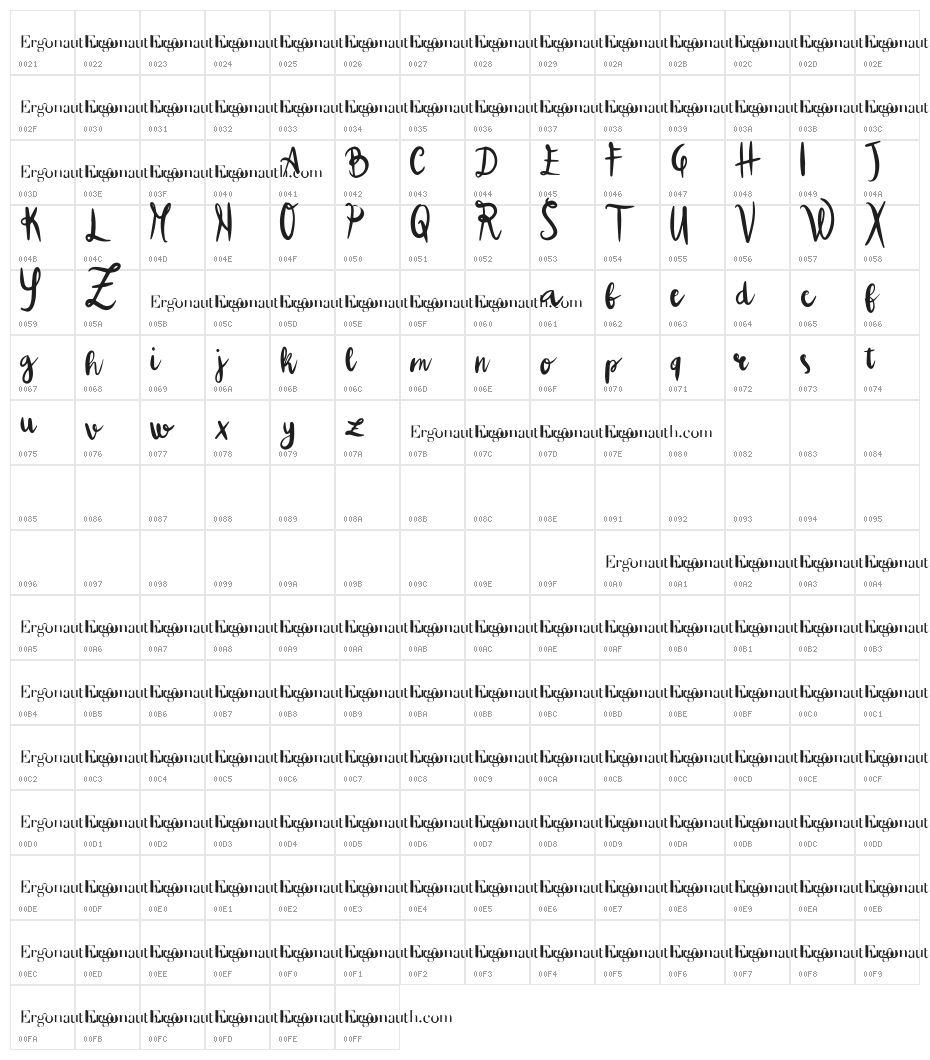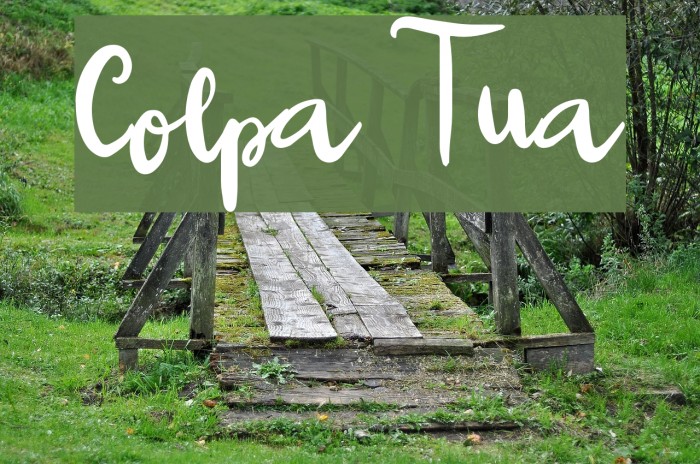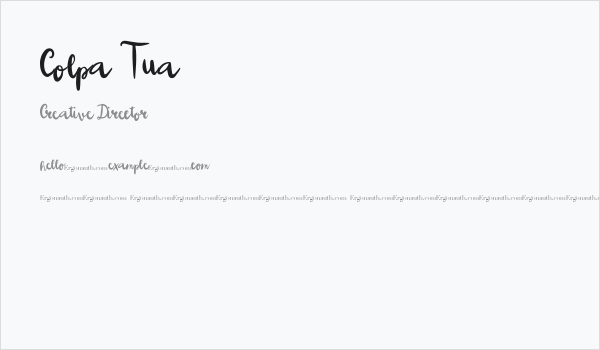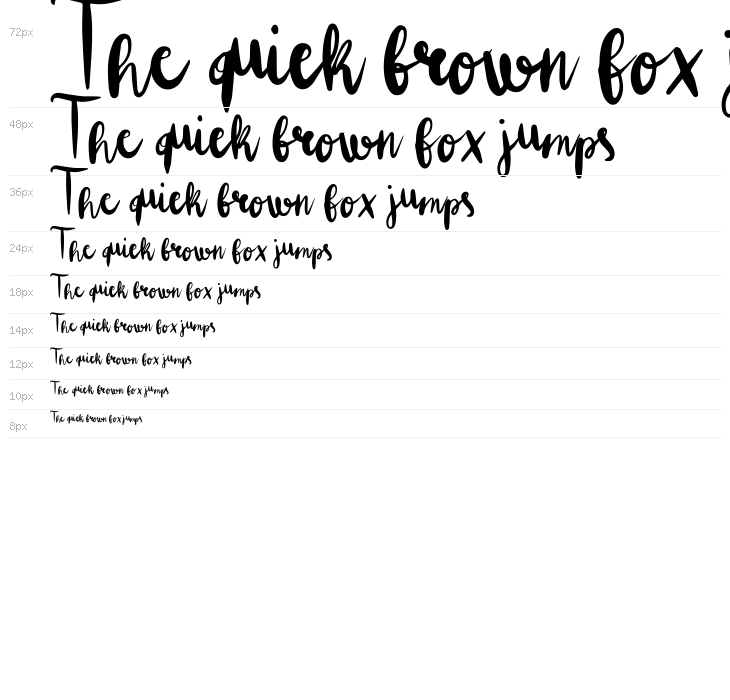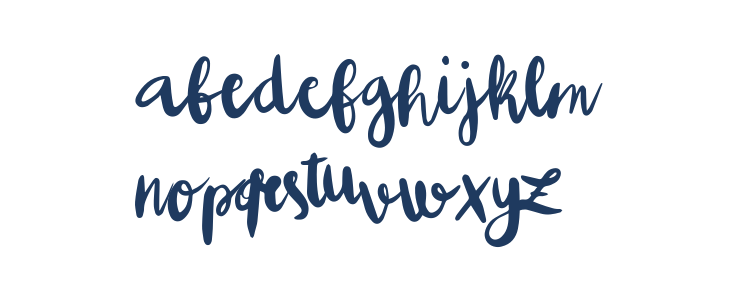
Colpa Tua Font
Colpa Tua Description
This font features a bold and expressive handwritten style, characterized by its fluid and dynamic strokes. The uppercase letters exhibit a playful and artistic flair, with varying line thickness that adds a sense of movement and energy. The lowercase letters maintain a consistent flow, complementing the uppercase with their smooth curves and loops. The overall appearance is both casual and sophisticated, making it suitable for creative and informal projects. The numbers and special characters are designed to match the lively aesthetic, ensuring a cohesive look across all text elements.
| Proposed Projects | Ideal for greeting cards, invitations, branding, and social media graphics. |